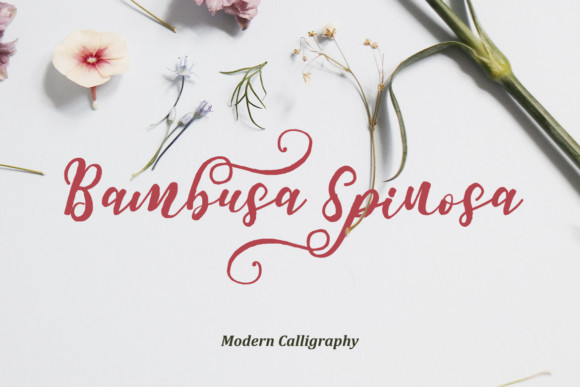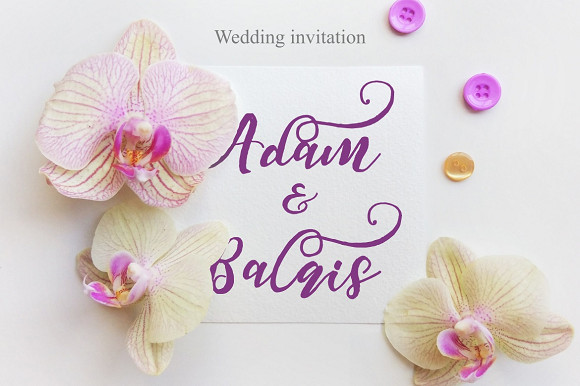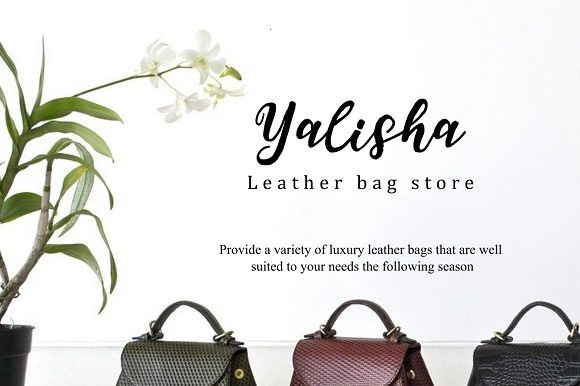
Bambusa Spinosa Font
Bambusa Spinosa feels equally charming and elegant. This stunning display font is a stylish homage to classic calligraphy. It features a varying baseline, smooth lines, gorgeous glyphs and stunning alternates. This font is PUA encoded which means you can access all of the beautiful glyphs and swashes with ease!